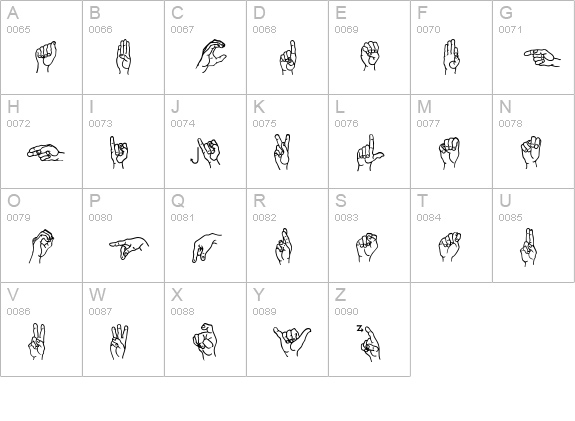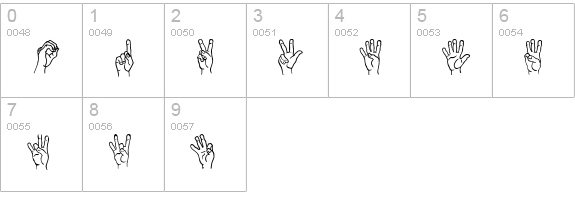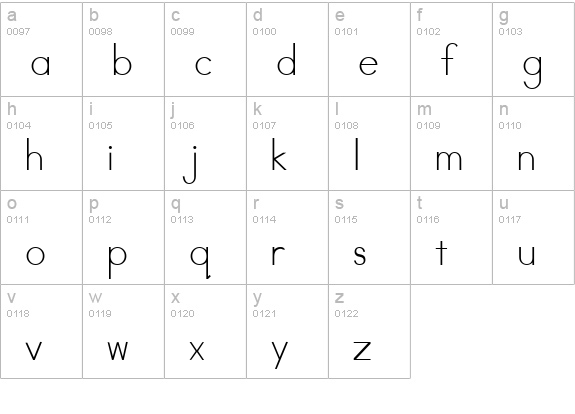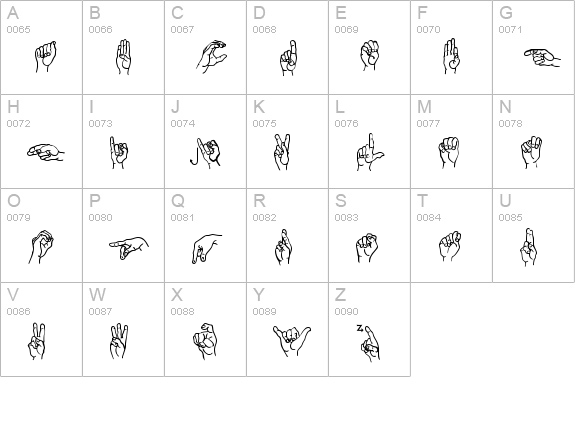
AbcAmSignLang Font Details
Introducing AbcAmSignLang font, a unique and visually striking typeface designed to capture the beauty and fluidity of American Sign Language. This innovative font features intricate hand gestures and symbols that beautifully represent the essence of sign language communication. Each character is meticulously crafted to convey meaning and emotion, making AbcAmSignLang perfect for projects that aim to celebrate inclusivity and diversity. What sets AbcAmSignLang font apart is not only its stunning visual appeal, but also the fact that it is available for free download at FontsMarket.com. This means that anyone can access this remarkable font and use it to create impactful designs without any cost. Whether you are a designer looking to add a touch of uniqueness to your work or an advocate for sign language and deaf culture, AbcAmSignLang font is the perfect choice for your creative endeavors. Download it today and start communicating in a whole new way with this free and versatile typeface.